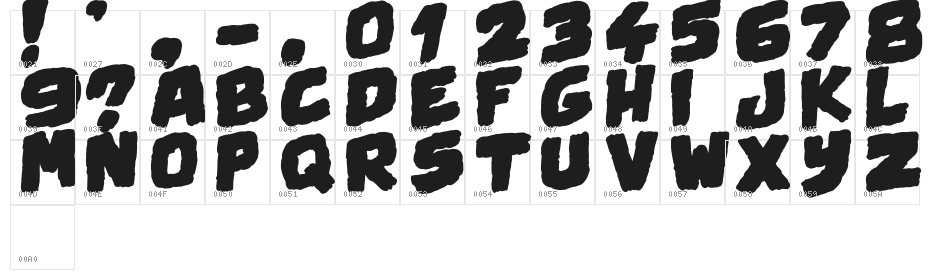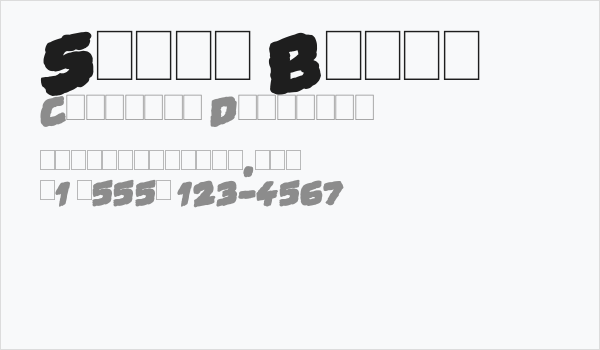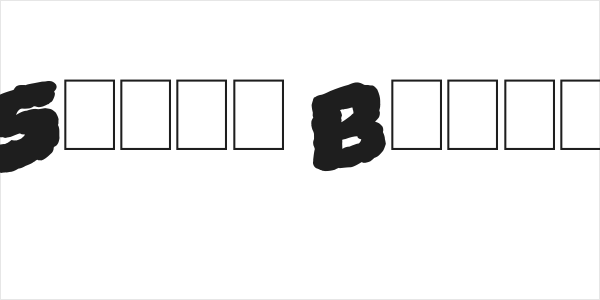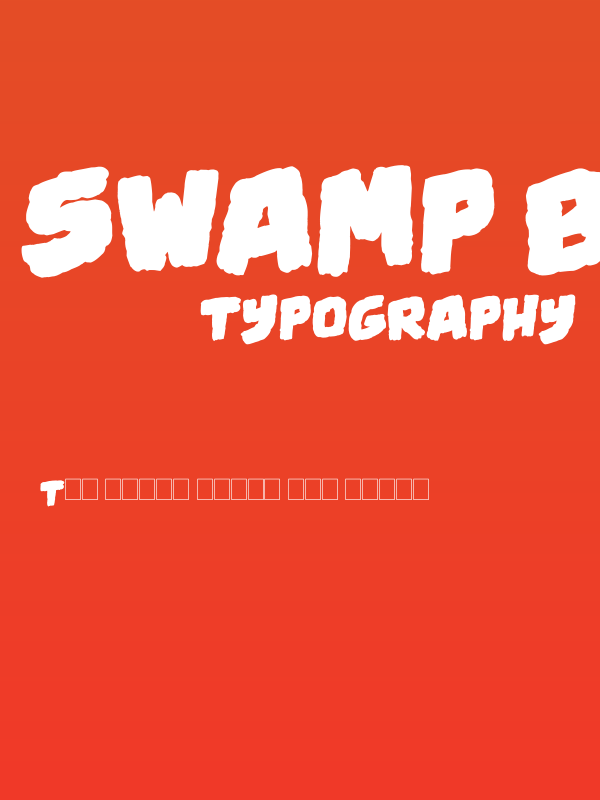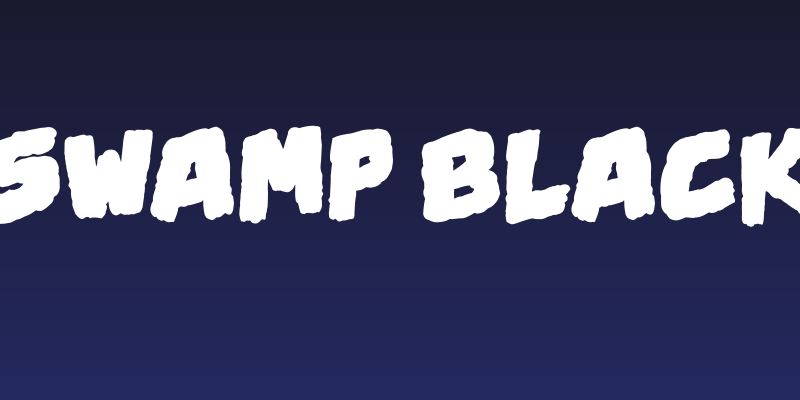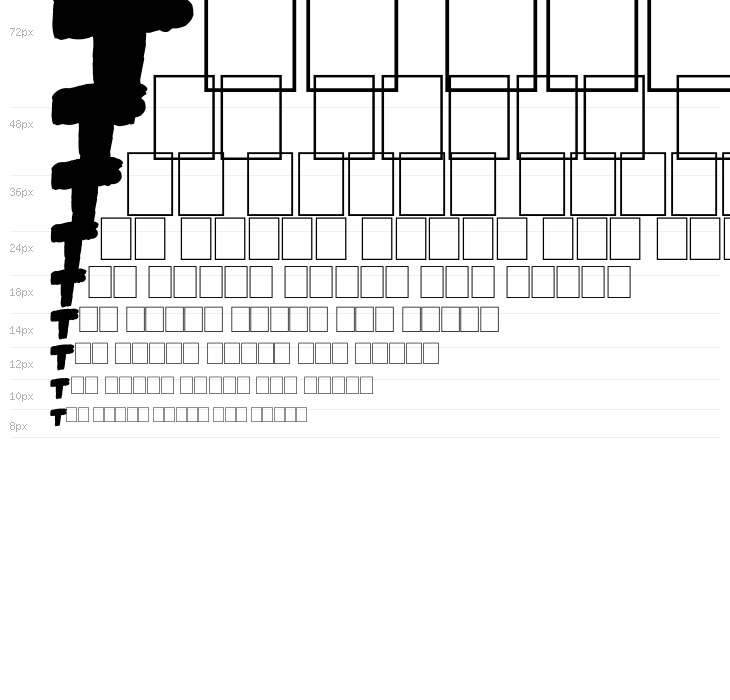
Swamp Black Font
Swamp Black Description
This font features bold, thick strokes with a rugged, organic appearance. The characters have an uneven, hand-drawn quality that gives them a dynamic and lively feel. The uppercase letters are particularly striking, with a strong presence that commands attention. The numbers and special characters maintain the same boldness, ensuring consistency across all glyphs. The overall style is reminiscent of natural textures, making it suitable for projects that require a touch of the outdoors or a rustic aesthetic. The font's heavy weight and unique style make it ideal for impactful designs.
Overall StyleRustic, Organic, Bold
Proposed ProjectsPerfect for outdoor-themed branding, rustic signage, bold posters, and adventurous book covers.